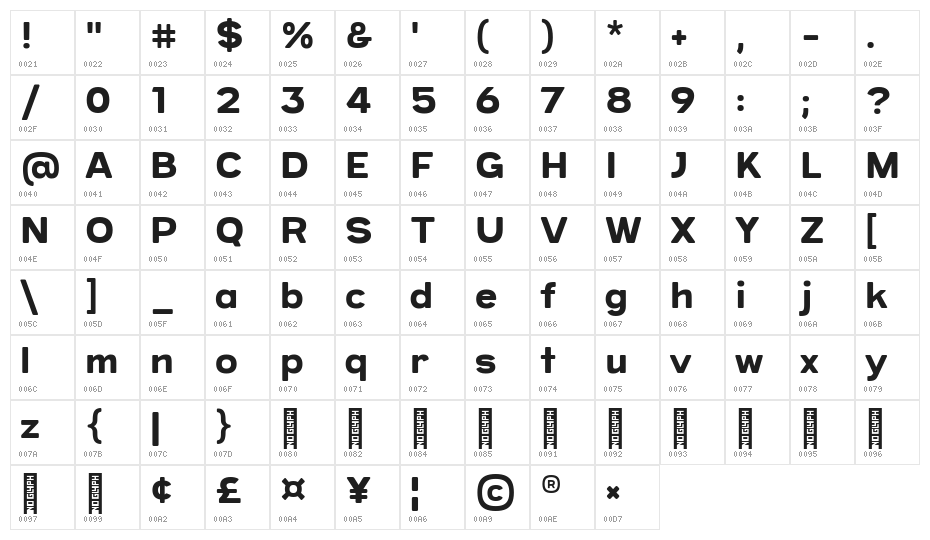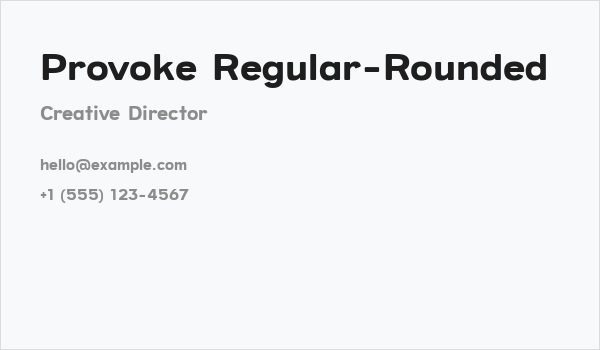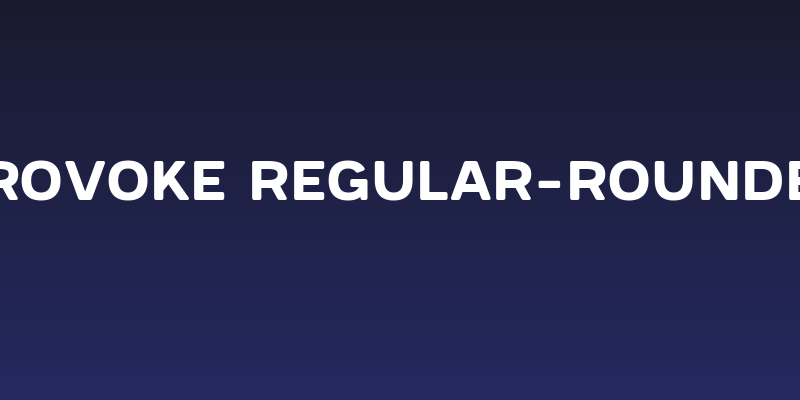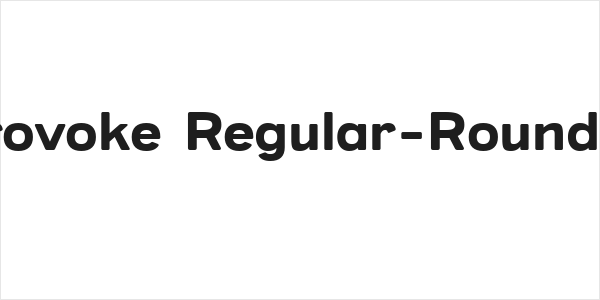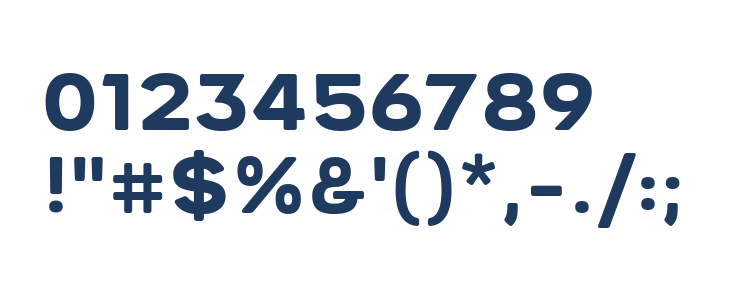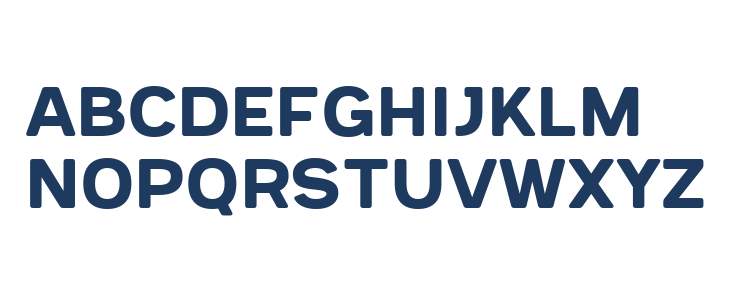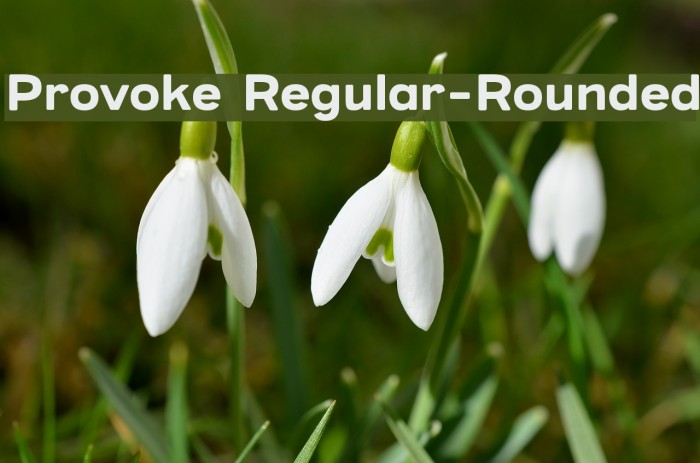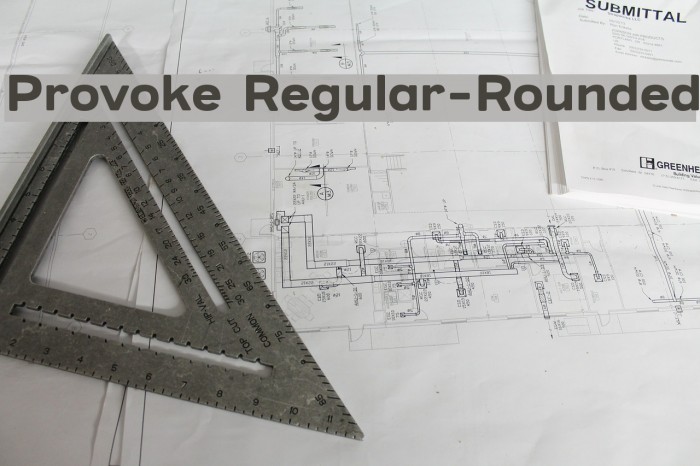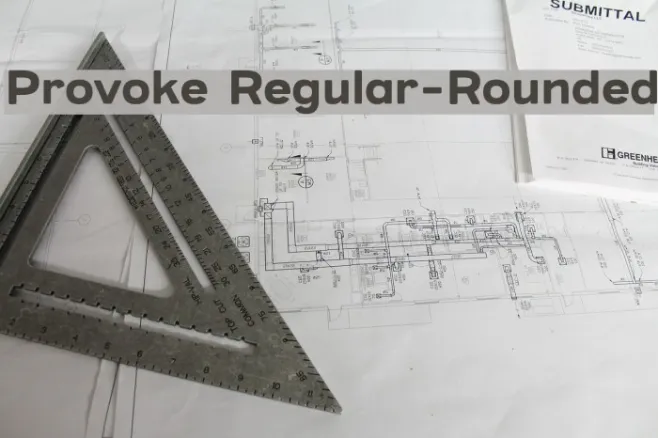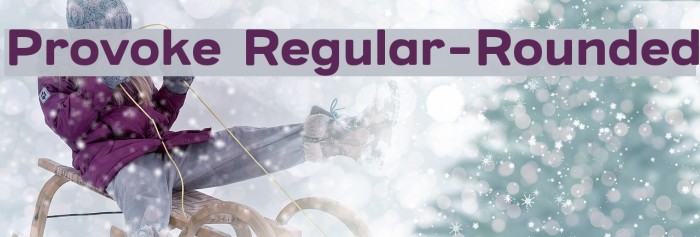
Provoke Regular-Rounded Font
Provoke Regular-Rounded Description
This font features a modern, rounded sans-serif style with a clean and approachable appearance. The characters are bold and well-defined, with smooth curves and a consistent stroke width that enhances readability. The rounded edges give it a friendly and contemporary feel, making it suitable for a variety of design applications. The uniformity in letterforms ensures a cohesive look across both uppercase and lowercase letters, as well as numerals and special characters. Its simplicity and clarity make it versatile for both digital and print media.
| Use Case | Headlines, Logos, User Interfaces |
| Proposed Projects | Ideal for branding, advertising, web design, and user interfaces where a modern and approachable look is desired. |